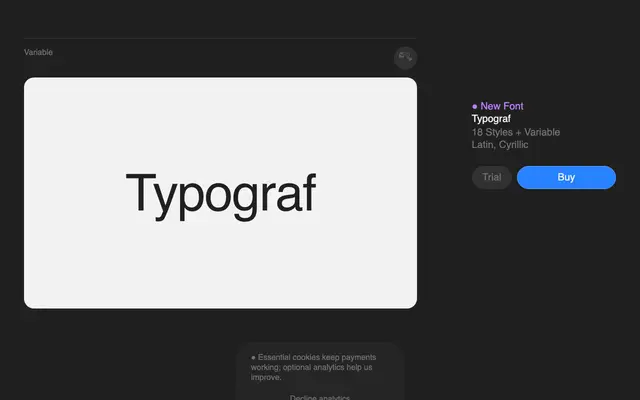
Typograf
A uniwidth sans-serif with 18 styles and a variable axis, built so that text never shifts when weights change in interface contexts.
All nine weights from Thin to Black, each with an italic, share identical character widths across every style, keeping buttons, tables and UI components stable regardless of weight changes. The variable font axis allows smooth interpolation without disrupting layout. Coverage spans 342 languages across Latin and Cyrillic scripts, with 12 stylistic sets and features including oldstyle figures, discretionary ligatures and a slashed zero.
A clean, contemporary sans-serif with geometric tendencies, designed specifically for UI environments with a uniwidth constraint across all styles.